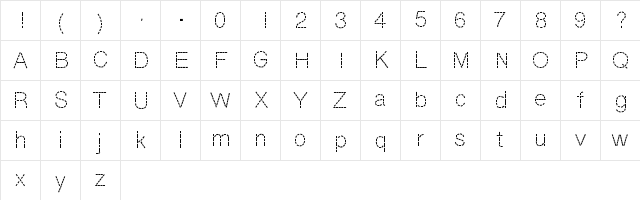
DashNess Medium Free Font
DashNess Medium
Design Context for DashNess
DashNess is a composed and adaptable typeface that performs quietly and consistently across a wide range of design contexts.
Pro Tip: Use DashNess in both headline and body roles to test its range before committing to a single application.